Électro-bibliothèque
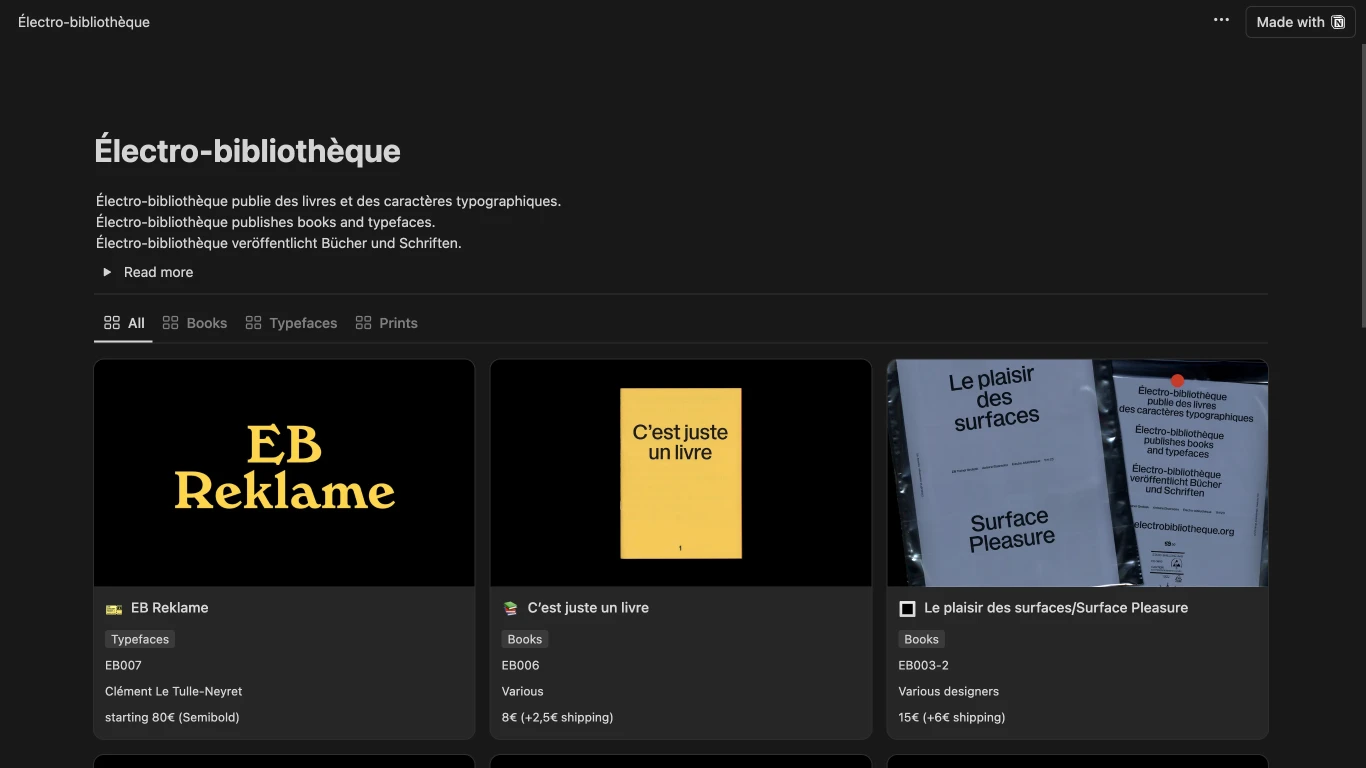
Électro-bibliothèque, founded in 2021 by Clément Le Tulle-Neyret and Thomas Leblond, is a French publisher specializing in both books and typefaces. One of their notable releases is EB Trainer Grotesk, designed by Antoine Elsensohn. This typeface reinterprets classic grotesque fonts like Helvetica and Neue Haas Grotesk, introducing less rigid proportions and a more relaxed aesthetic. Its design evokes the Op Art movement of the 1960s, aiming to create striking visual effects